1 Google Font Similar to Interstate
Interstate is a sans-serif font created by Tobias Frere-Jones. It was inspired by the fonts used for the United States High signs. While it works great for signs, this font has been modified to work for print and web design.
Interstate is such a unique font. So that made it difficult to find a good alternative.
After digging around through all the font available in the Google Font library, I was able to narrow it down to just one that may be a good fit.
What Google Font is Similar to Interstate?
The most similar font to Interstate that is available in Google Fonts is Overpass.
Overpass does a great job in matching almost all the letters in both upper and lowercase.
The main difference is in how bold the letters are and the kerning in Interstate.
Otherwise it would be almost the same font. It does a good job matching the really unique lowercase "g" and uppercase "Q".
Here are some images for you to compare for yourself.
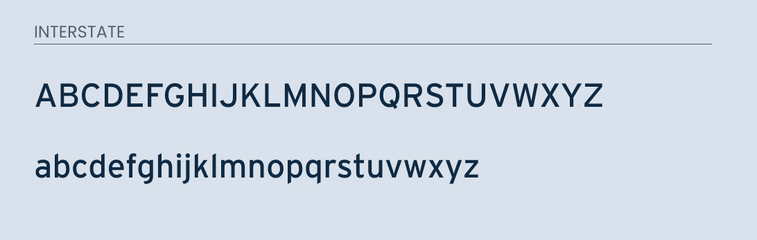
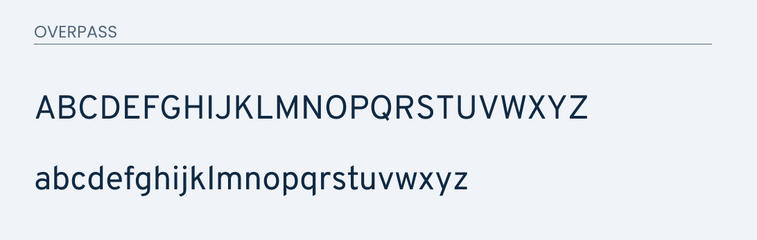
Conclusion
Overpass is the most similar looking font to Interstate. This font will be your best choice from the Google Font library.